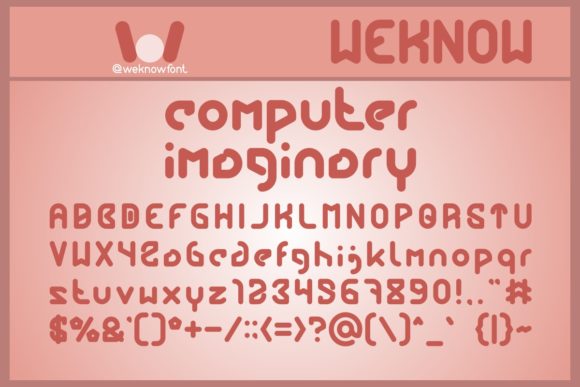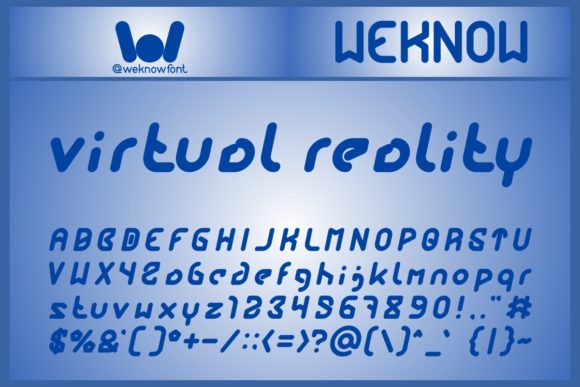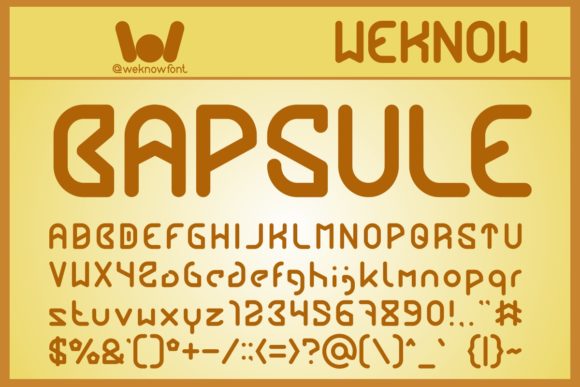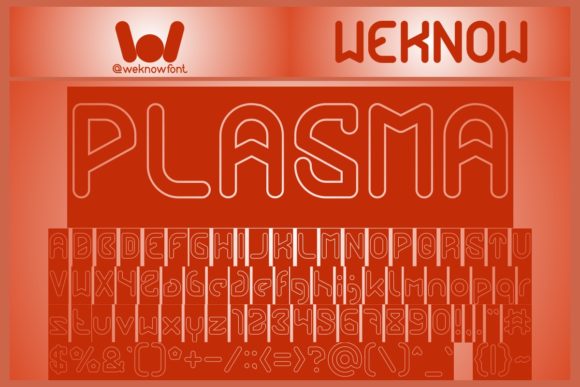
Unlocking Your Creative Potential with Future Font
You’ve finally landed the perfect idea for a branding project, and you can’t wait to bring it to life. The excitement is palpable as you start sketching out concepts, envisioning how your design will captivate your audience. But, have you ever stopped to think about what makes your design truly stand out from the crowd?
That’s where Future Font comes in – a bold and neat lettered display font that adds a touch of sophistication to any design. With its sleek lines and modern aesthetic, Future Font is the perfect addition to any creative project. Whether you’re a seasoned designer or just starting out, this font is an invaluable tool that can elevate your designs and help you make a lasting impression.
As a designer, you know that the right font can make all the difference in conveying your message and capturing the essence of your brand. Future Font is more than just a font – it’s a key to unlocking your creative potential and taking your designs to the next level.
Key Features of Future Font
- Font Family: A unique sans-serif font with geometric shapes and futuristic feel, ideal for digital and tech-related projects.
- Character Set: Includes a comprehensive character set, covering Latin, Cyrillic, and Greek alphabets, as well as various punctuation and symbol characters.
- Kerning and Ligatures: Optimized for smooth text rendering, with advanced kerning and ligature systems to ensure a polished and professional appearance.
Future Font Review
Overall, I’m quite impressed with “Future Font” – it’s a bold, modern sans-serif that’s perfect for futuristic and tech-related designs. ✨
- Unique character shapes and lines create a sense of movement and dynamism, making it perfect for headings and titles.
- The font is highly legible, even at smaller sizes, which is essential for body text.
- The font family includes a wide range of weights and styles, giving designers a lot of flexibility.
However, I do have a few concerns that prevent me from giving it a full 5-star review: ⚠️
- The font can be a bit too bold and overwhelming at times, which may not be suitable for all types of content.
- The italic styles are not as refined as the regular styles, which can make them look a bit unpolished.
- The font doesn’t include any swashes or alternative characters, which may limit its creative possibilities.
Overall, “Future Font” is a great choice for designers who want to create a futuristic and high-tech look, but may require some additional tweaking to suit specific design needs.
Getting the Most Out of Future Font
To get the most out of Future Font, use it to create futuristic and tech-savvy designs. Pair it with other bold and sleek fonts to create a cohesive look. Use it for headings and titles to add a touch of futurism to your designs.
Future Font is commonly used in designs that require a futuristic and high-tech feel, such as:
- Science fiction and space-themed designs
- Technology and gadget designs
- Cyberpunk and futuristic cityscape designs